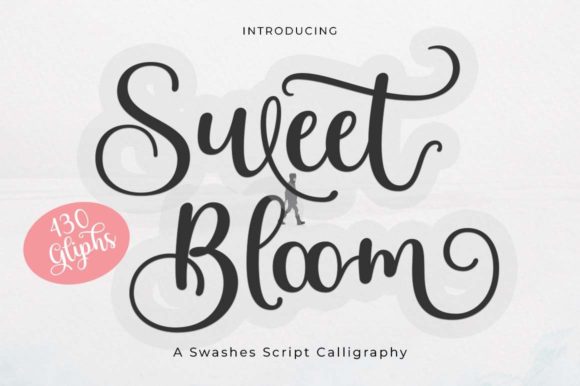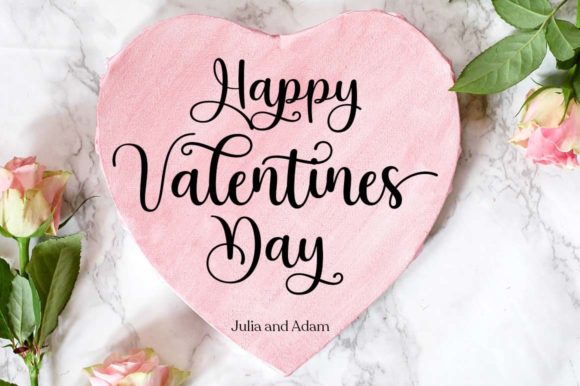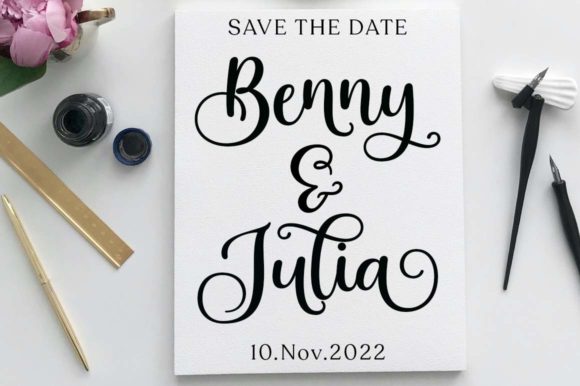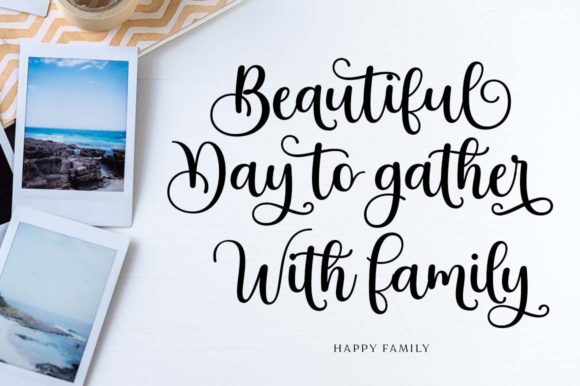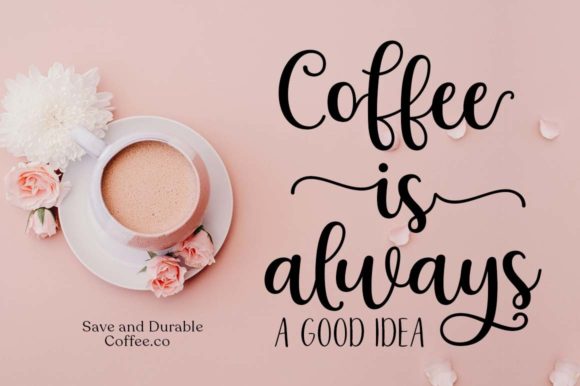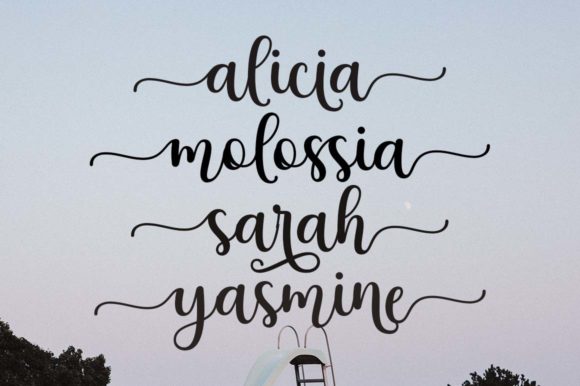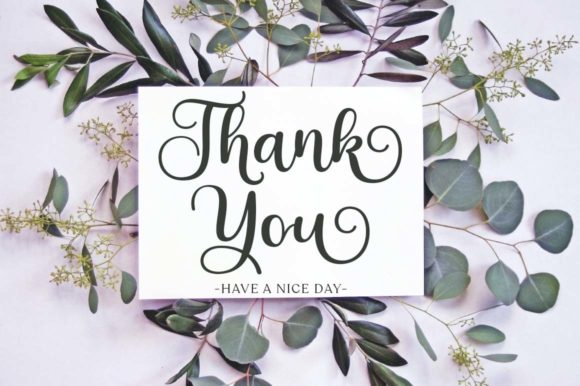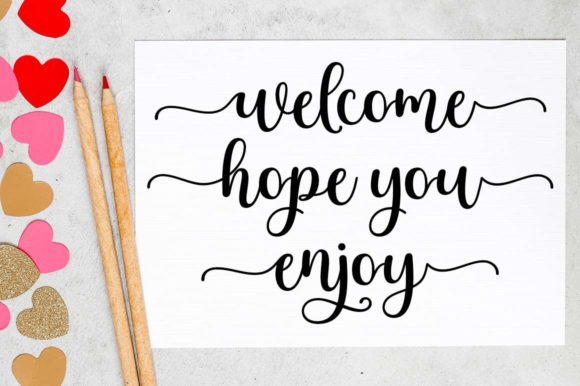
Sweet Bloom Font
About Sweet Bloom Font
Introducing “Sweet Bloom,” an amazing typeface handmade script font crafted in freestyle, providing you with endless creative possibilities for your various projects. This versatile font is perfect for a wide range of purposes, including logos, wedding invitations, titles, t-shirts, letterheads, signage, labels, news, posters, badges, and much more. With its unique and handmade design, “Sweet Bloom” adds a touch of creativity and charm to every piece of work you undertake.
The beauty of “Sweet Bloom” lies in its freestyle script, allowing for a natural and organic feel that suits various design applications. Whether you’re working on a romantic wedding invitation or a bold logo for your business, this font is designed to adapt seamlessly to your creative vision.
This typeface is not just about aesthetics; it’s a functional tool for your projects. “Sweet Bloom” is PUA encoded, granting you easy access to its extensive collection of amazing glyphs and ligatures. This feature ensures a smooth and hassle-free design process, allowing you to explore the full creative potential of the font effortlessly.
Picture “Sweet Bloom” as your go-to companion for bringing a handmade touch to your designs. Let it shine in diverse contexts, from branding to signage, where its unique charm and versatility can make a lasting impact.
In summary, “Sweet Bloom” is more than just a font; it’s a versatile and charming typeface crafted to elevate your creative work. With its handmade script and PUA encoding, this font opens up a world of design possibilities, making it a valuable addition to your toolkit for creating distinctive and captivating visuals.